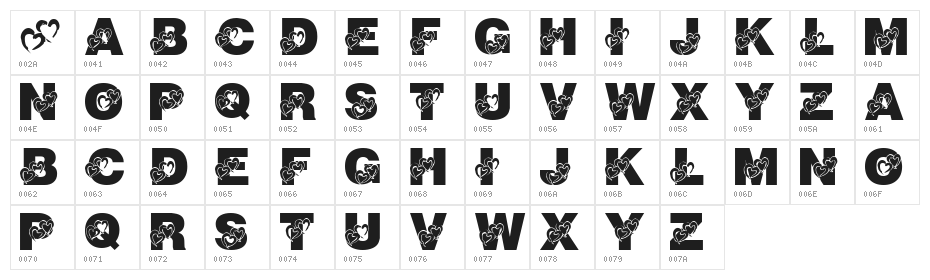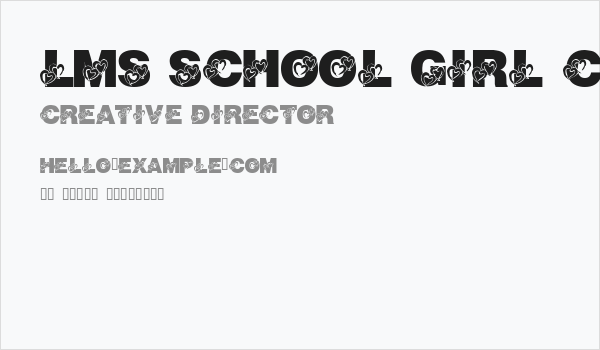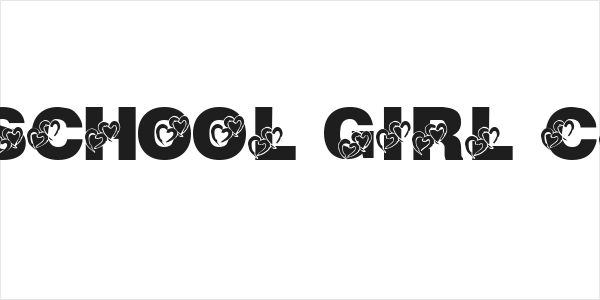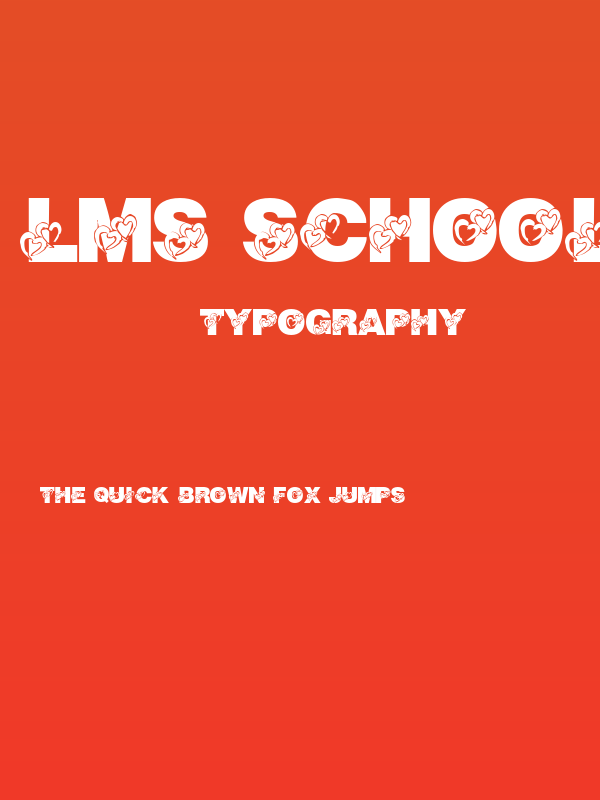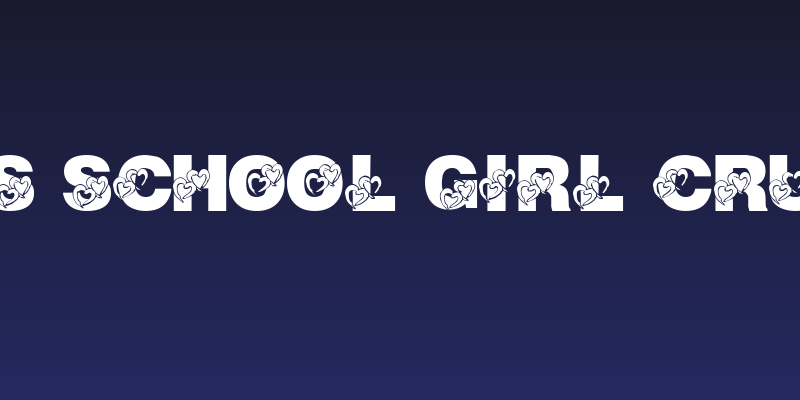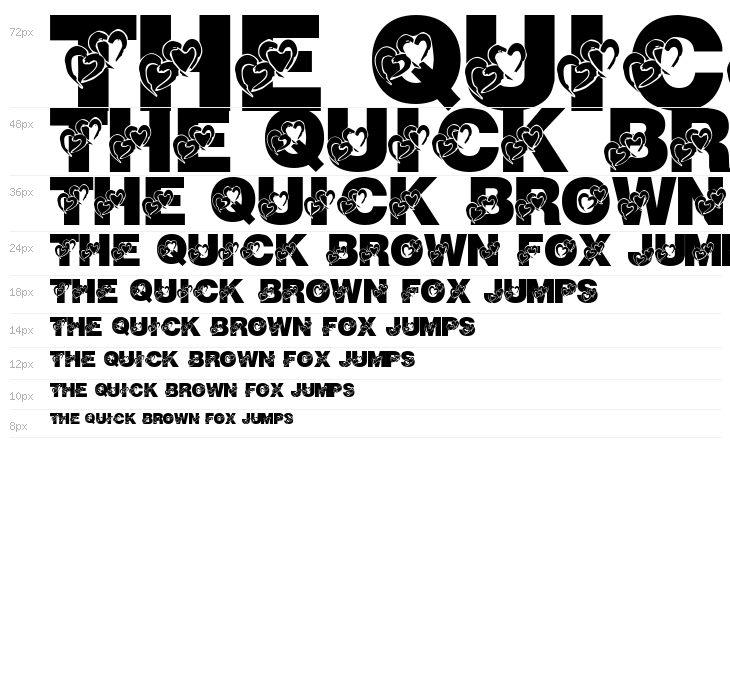
LMS School Girl Crush Font
LMS School Girl Crush Description
This playful and bold font features uppercase letters adorned with charming heart motifs, giving it a whimsical and youthful appeal. The characters are solid and robust, with each letter incorporating a series of small, interlocking hearts that add a decorative touch. The font is designed to capture attention, making it ideal for projects that require a fun and lively aesthetic. Its unique style is perfect for creating eye-catching headlines, posters, or invitations that aim to convey a sense of joy and creativity.
| Use Case | Headlines, Posters, Invitations |
| Proposed Projects | Ideal for children's party invitations, playful posters, Valentine's Day cards, or any design needing a fun and lively vibe. |